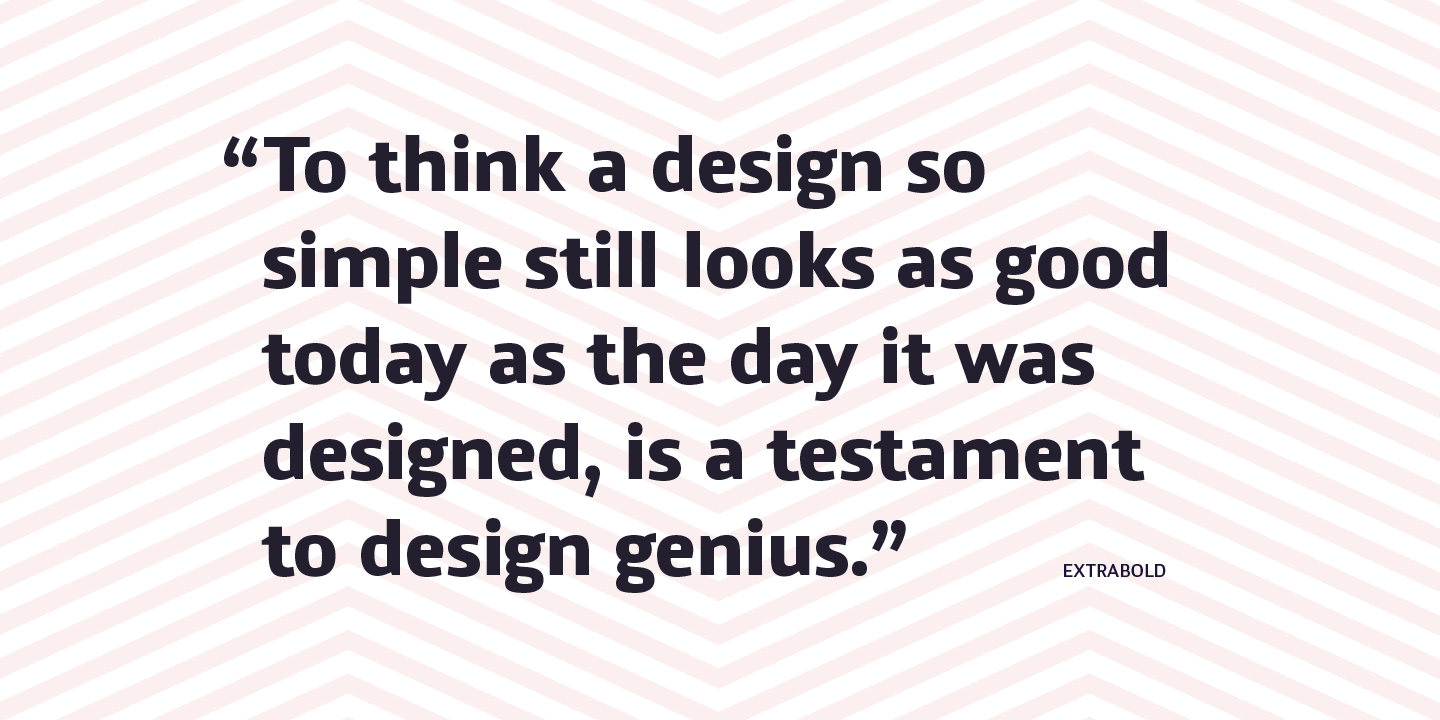
Kandin Font is ideal for modern branding, editorial headlines, posters, website banners, and creative advertising. Its clean lines and bold structure give a confident and contemporary vibe.
What makes Kandin Font exciting is its blend of geometric precision and artistic flair. The font balances readability with unique personality, making your designs stand out with style.
The font family typically includes multiple weights such as Regular, Bold, and Italic, offering versatile options for different design needs.
If you want to add a sharp, modern edge to your projects, Kandin Font Free Download is an excellent choice. Let this font empower your creative vision with clarity and impact.